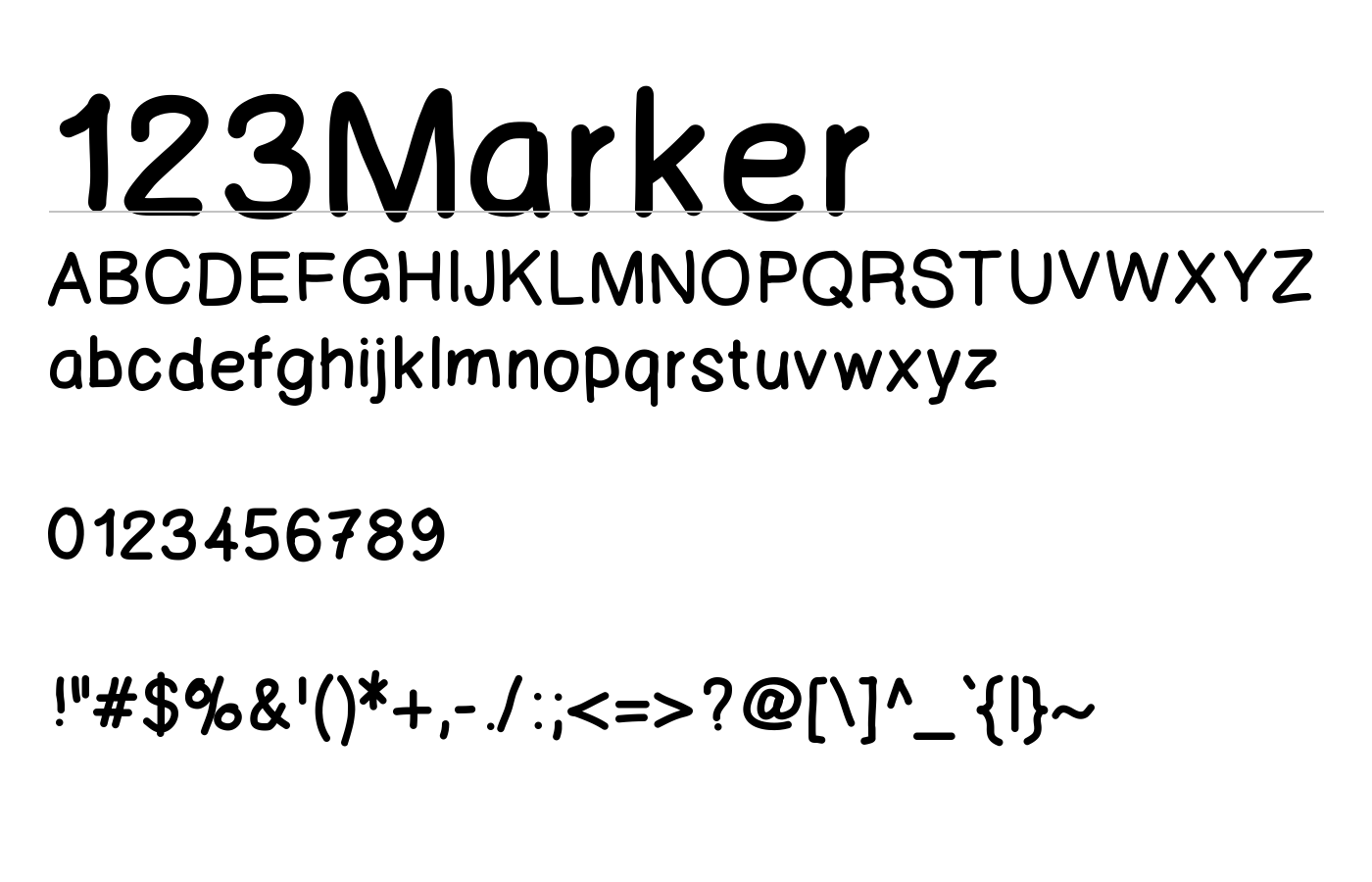
123Marker is a playful and casual sans serif font that mimics the look of handwritten marker pen writing. Its medium weight and slightly irregular, rounded letterforms give it a friendly and approachable feel, making it ideal for informal designs, children’s materials, and creative projects. This font works well for creative headlines, logos, and educational content where a personal, fun touch is desired.
123Marker Font
About 123Marker Font